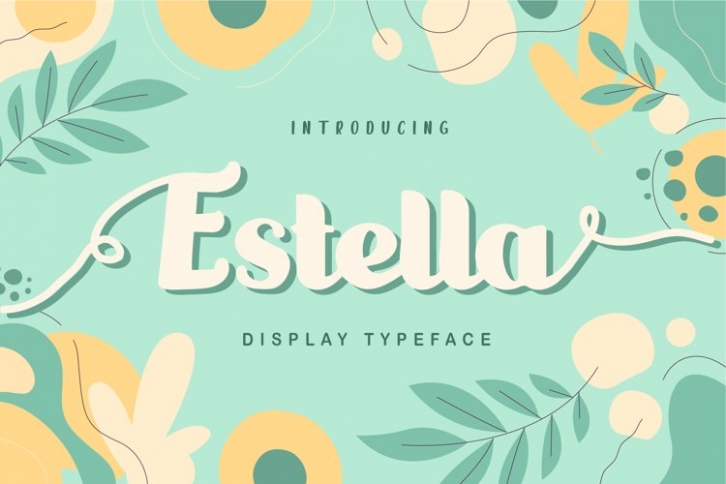
Estella is a beautiful font that was designed by plusstore. It's a great choice for designers and creatives who need such a font. It was released on December 24, 2021 and the file size is 13.39 MB. Estella may give a more youthful, expressive and casual look to your project. It is a very beautiful, refined, elegant, and high-quality font.